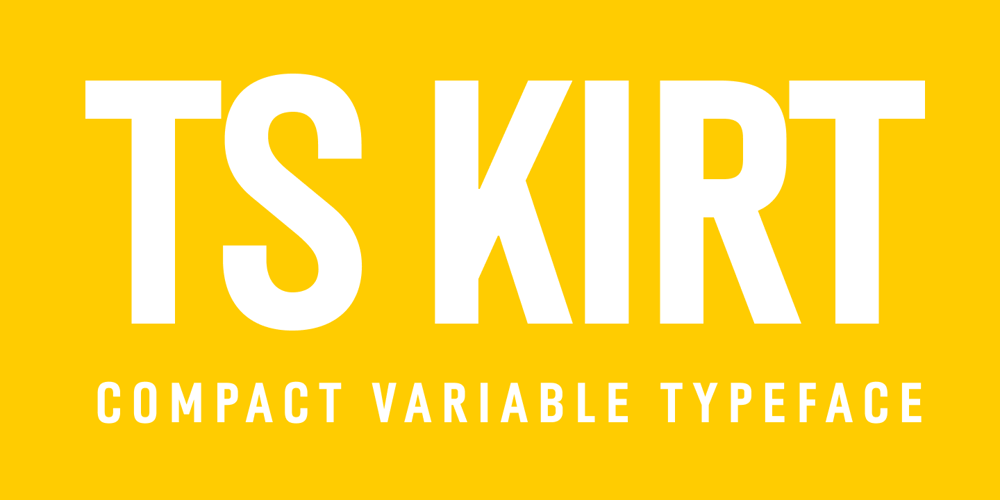
TS Kirt
TS Kirt font
TS Kirt Font Family was designed by Vitaliy Tsygankov and published by Vitaliy Tsygankov. TS Kirt contains 7 styles and family package options. TS Kirt – variable sans-serif typeface with narrowed proportions. The font is suitable for titles, packaging, printing, websites, infographics, and advertising.The TS Kirt font family consists of 6 faces and as well as a variable version.The advantage of the font – the same width character in any style. When switching the face, the length of the line will not change.